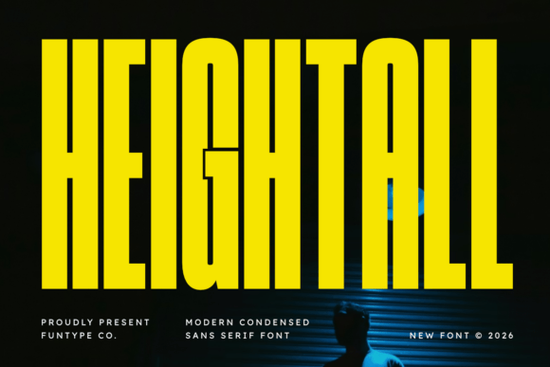
When you need a typeface that commands attention without taking up too much horizontal space, a condensed sans serif is your best option. The Heightall Font is exactly that kind of tool. It gives you the bold impact of a heavy display typeface while keeping a compact width. This makes it incredibly useful for print-on-demand sellers, graphic designers, and small business owners who need strong headlines for posters, apparel, and social media graphics.
What makes an ultra-condensed typeface so effective?
Ultra-condensed fonts stretch vertically while squeezing horizontally. This creates a sense of height and urgency. When you are designing a sports graphic or an album cover, you often have a lot of text to fit into a tight space. A compact width allows you to use larger, bolder letterforms without breaking your layout. It keeps the design clean and confident, giving your visuals a striking and professional look. For crafters making custom mugs or tote bags, this vertical stretch means you can fit a longer phrase on a narrow surface without shrinking the text size.
Where should you use bold, tall typography?
You want to save this typeface for moments that need high impact. It is not meant for long paragraphs or body text. Instead, use it for:
- Main headlines on modern posters and event flyers.
- T-shirt graphics where vertical space is limited but the message needs to be loud.
- Sports branding and team logos that require a strong, athletic feel.
- YouTube thumbnails where you need to grab attention quickly on small screens.
How do you pair tall sans serifs with other styles?
Pairing a heavy, condensed font can be tricky because it dominates the space. The secret is to balance it with a font that has a lot of white space and a lighter weight. For example, if you are designing a lifestyle brand poster, use a bold condensed font for the main title and a clean, readable sans serif for the details. When working with small businesses, branding often requires a mix of strong and soft elements. A heavy condensed font works beautifully for the primary logo mark, while a secondary, lighter font handles the tagline. If your project has a more casual or handwritten vibe, mixing it with a friendly option like the Tired Moms design can soften the overall look and make it feel more approachable.
What features should you check before downloading?
Quick checklist for your next condensed font project:
- Limit your text: Keep headlines to three or four words maximum to maintain readability.
- Adjust tracking: Tighten the letter spacing slightly to enhance the compact, tall effect.
- Check contrast: Ensure your background color provides enough contrast for the bold strokes.
- Pair wisely: Use a simple, lightweight font for your subheadings and body copy.
- Test in context: Always view your design at actual size before finalizing.
Take a few minutes to test your chosen typeface in your design software before finalizing your layout. Seeing how the tall structure interacts with your specific imagery will help you make the best choice for your final piece.